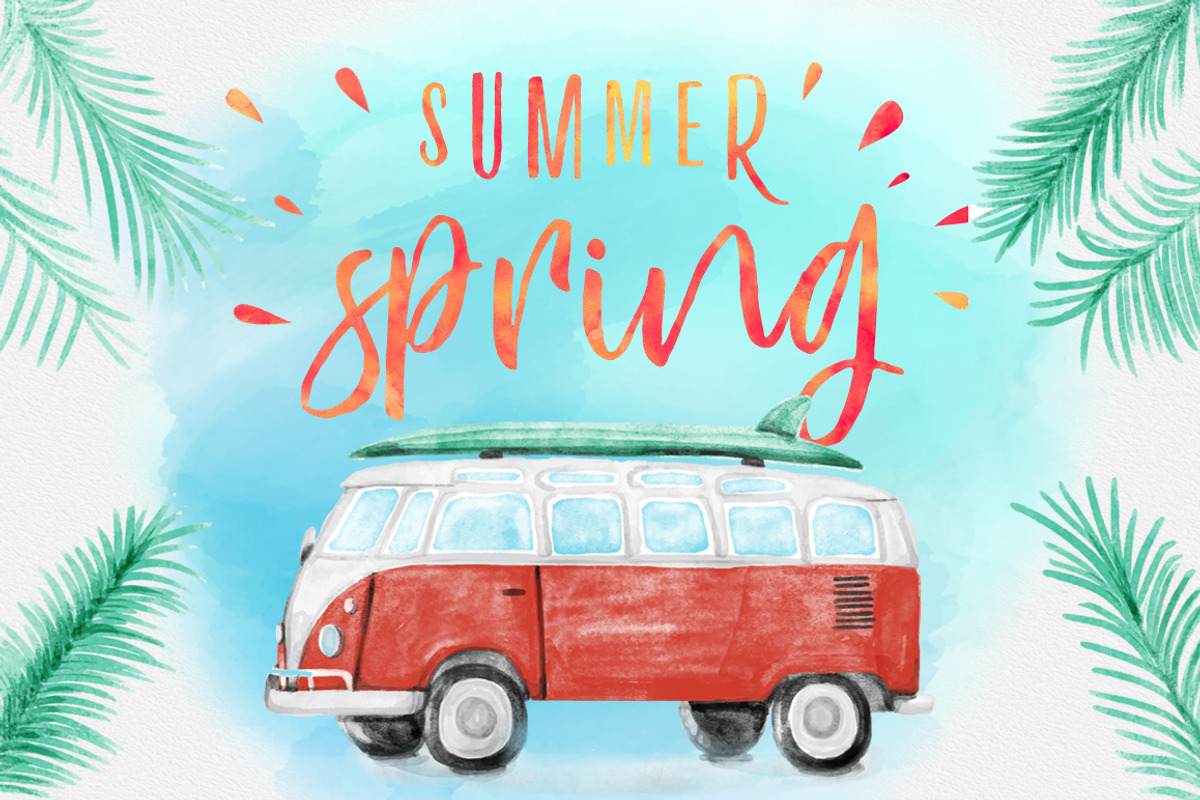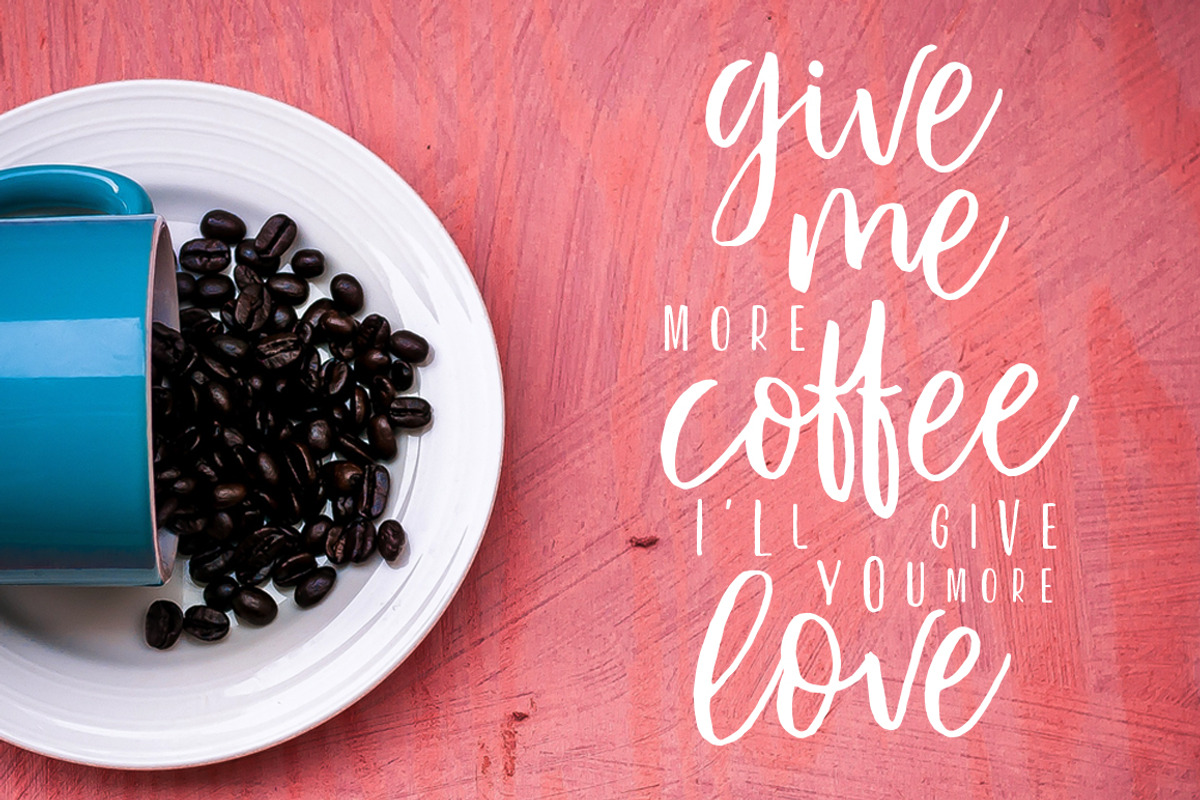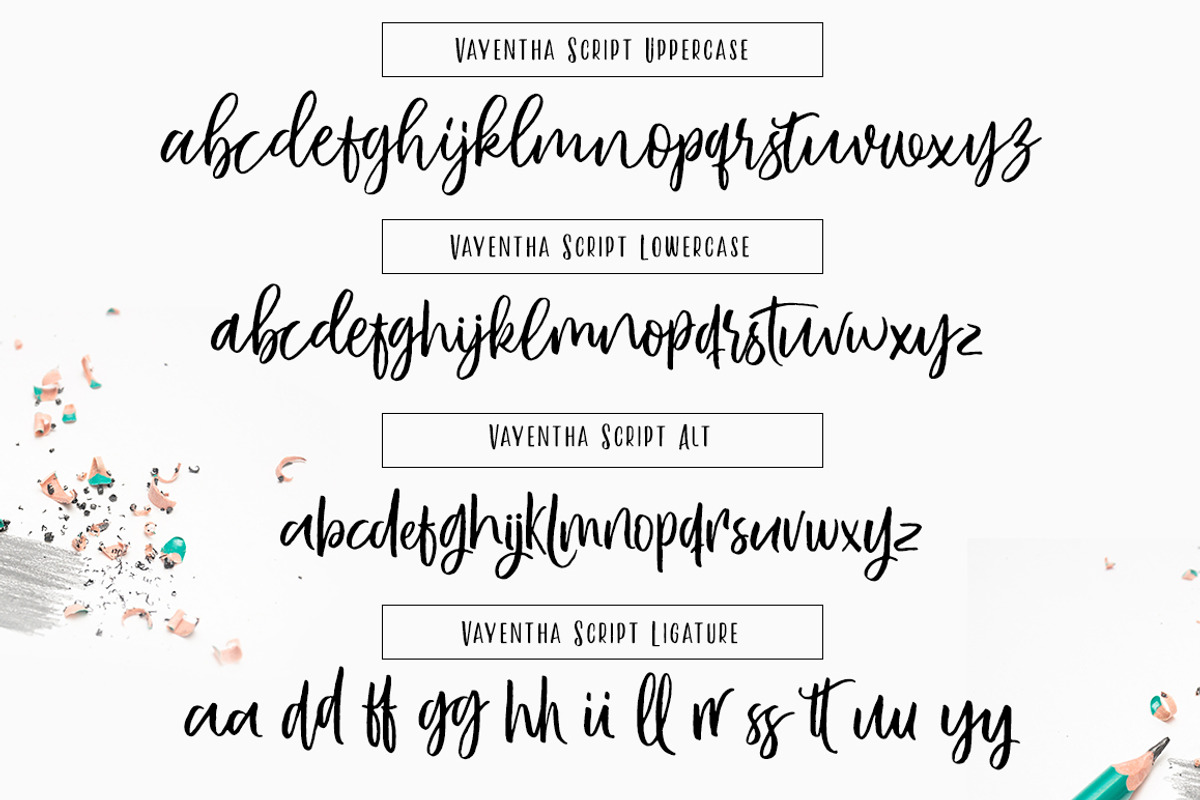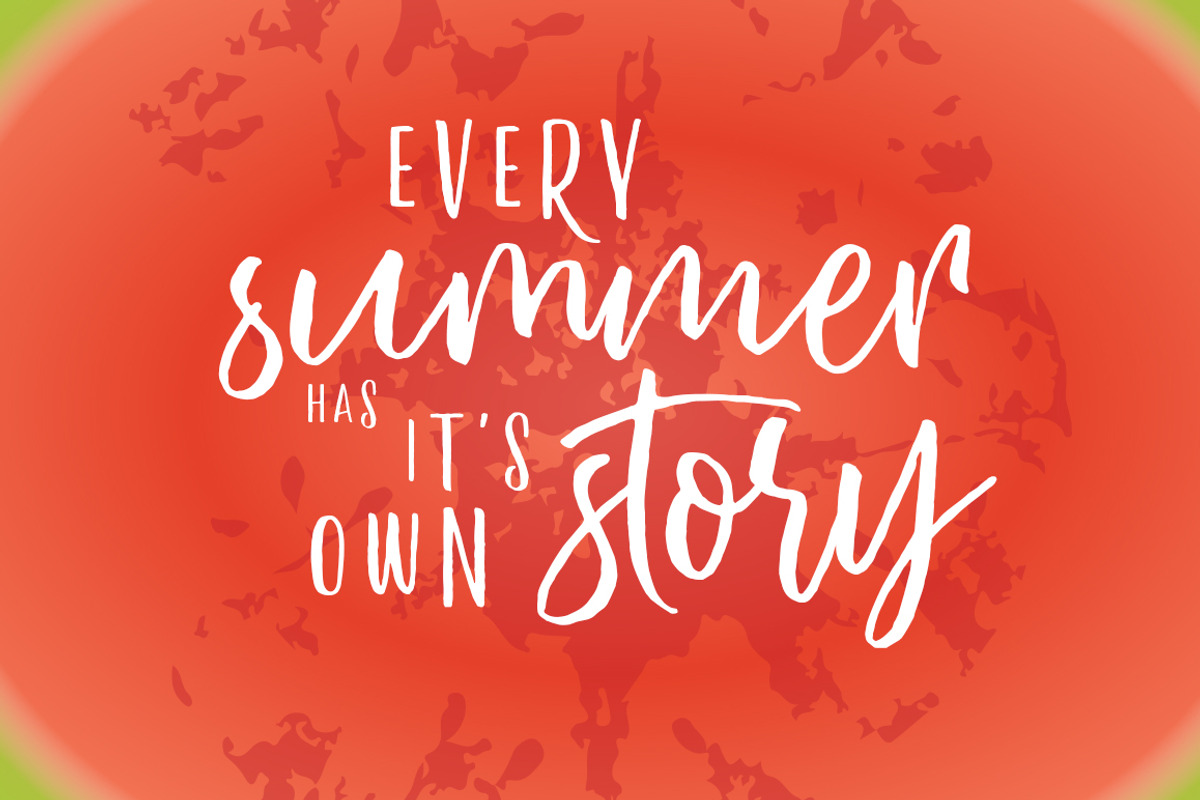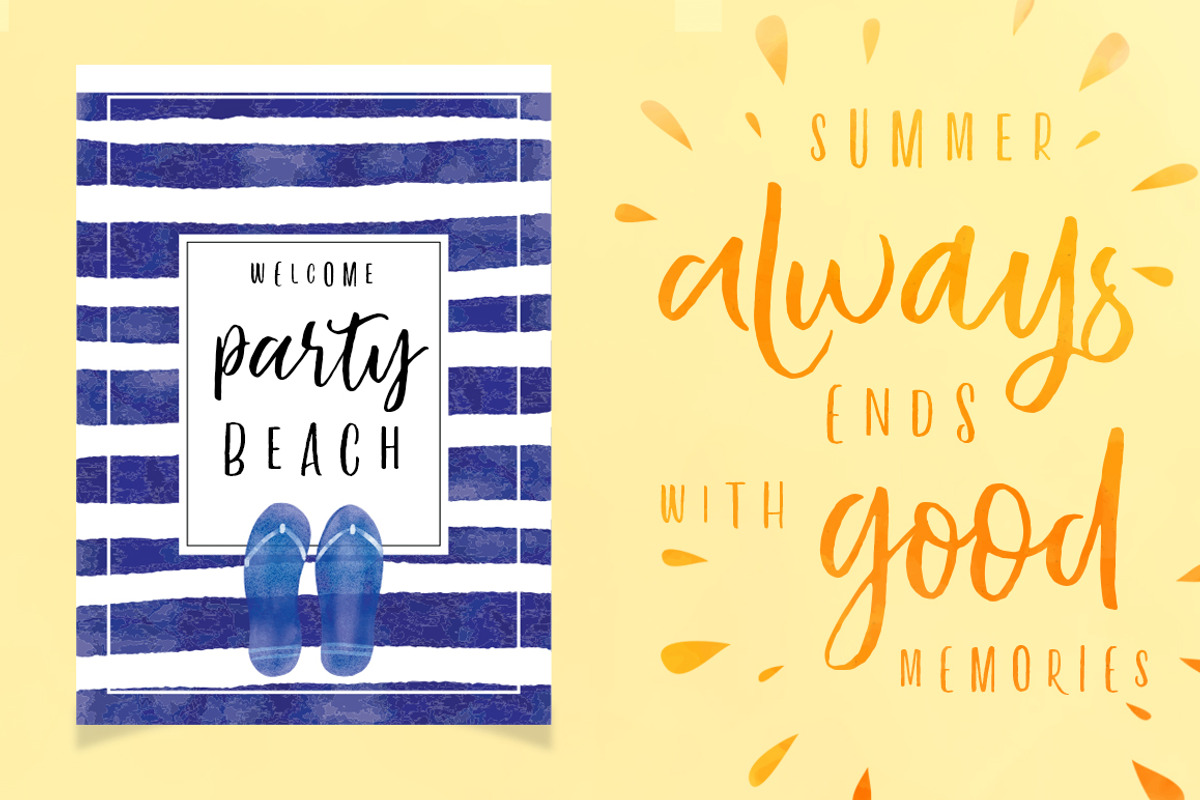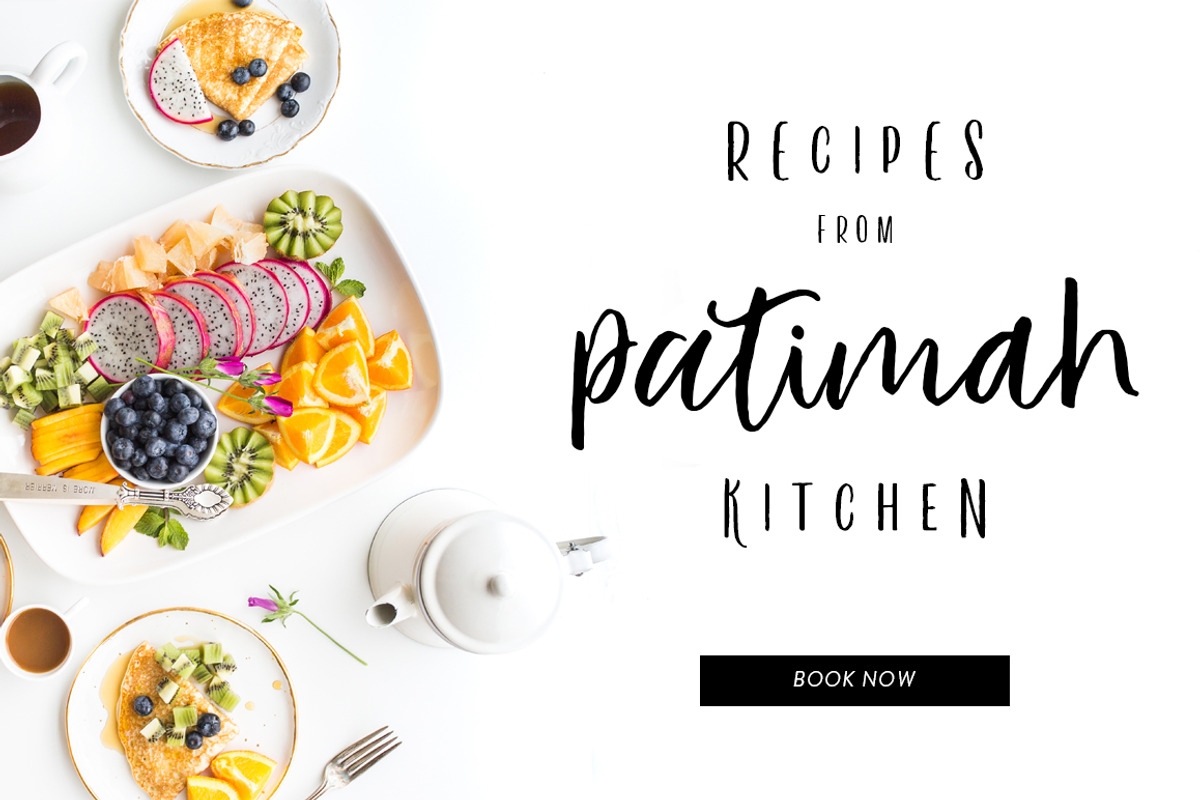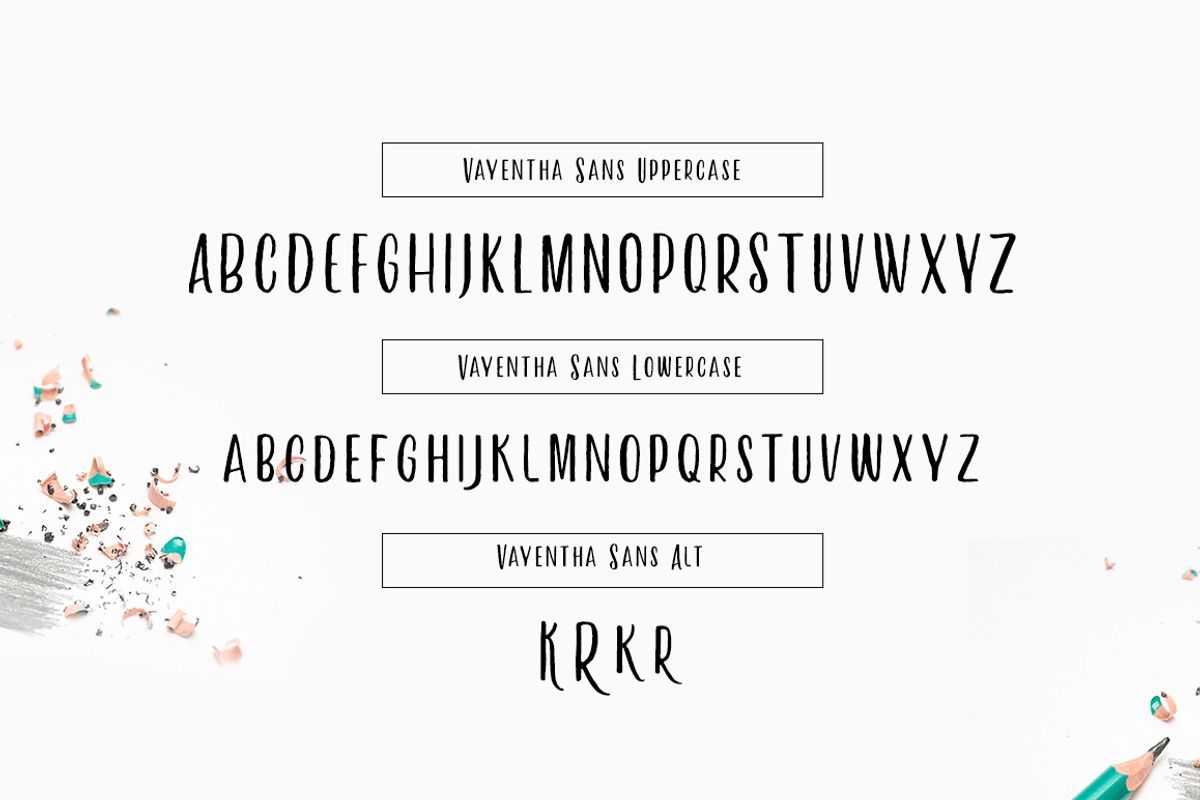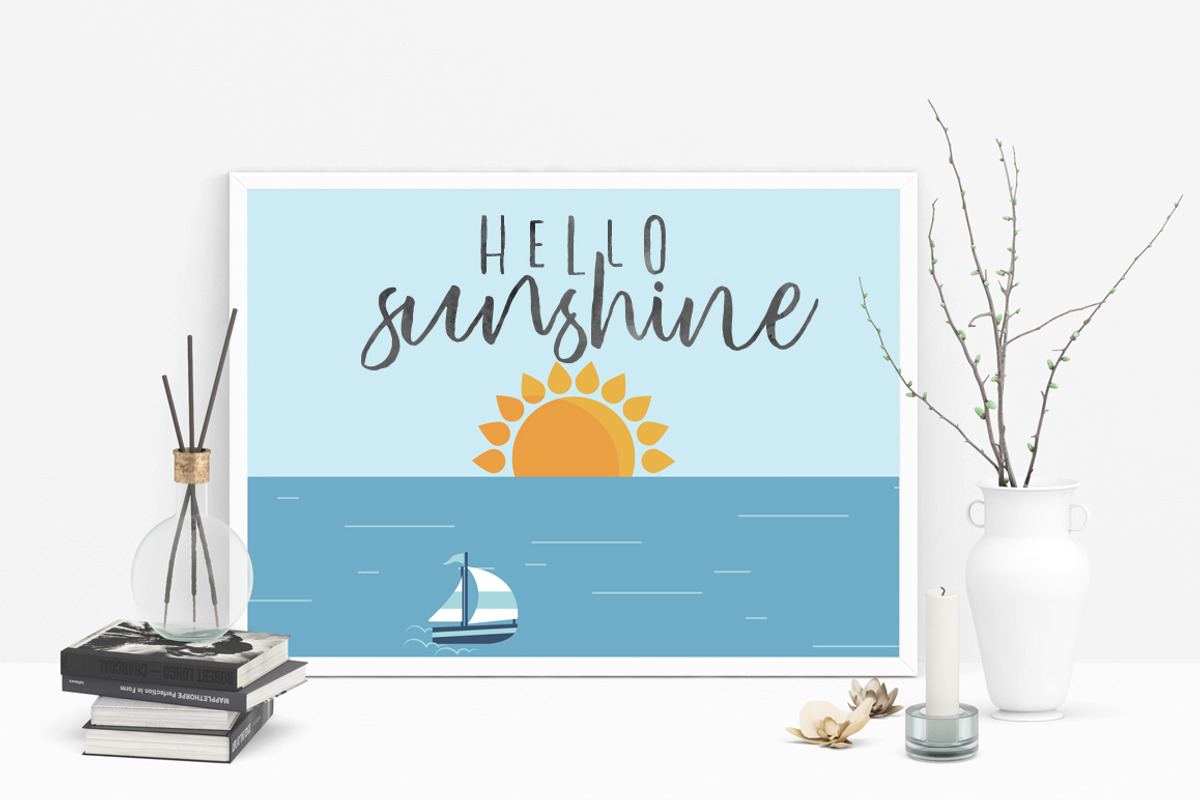
Vayentha Script & Sans (+Webfont)
Vayentha Script & Sans (+Webfont) by Ryan Prasetya is a font selected for branding, posters, packaging, typography.
- Three kinds of lowercase script is very beautiful was completely with two uppercase sans.
Why Vayentha Script & Sans (+Webfont) is worth a look
Vayentha Script & Sans (+Webfont) by Ryan Prasetya fits naturally into Branding, posters, packaging, typography.